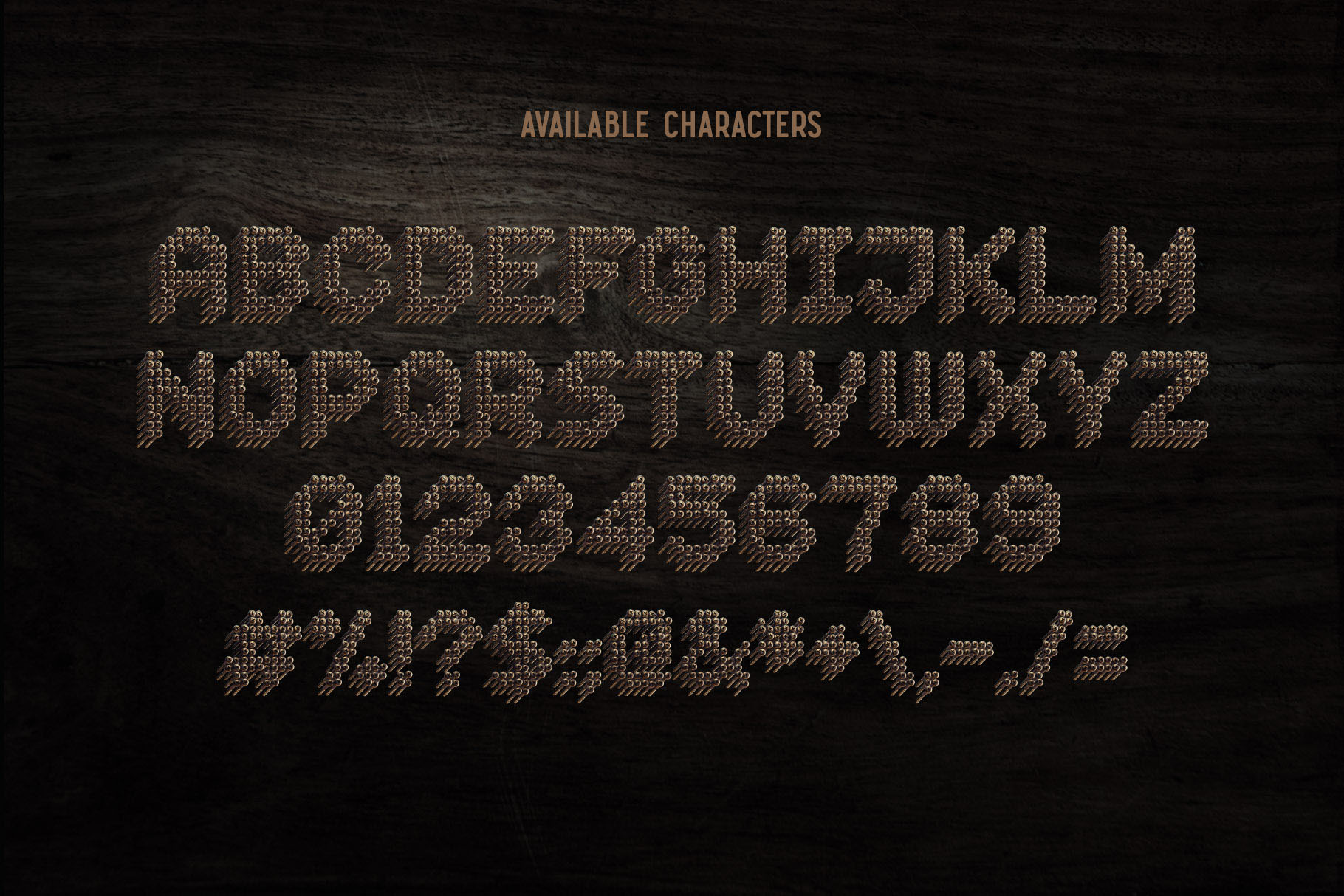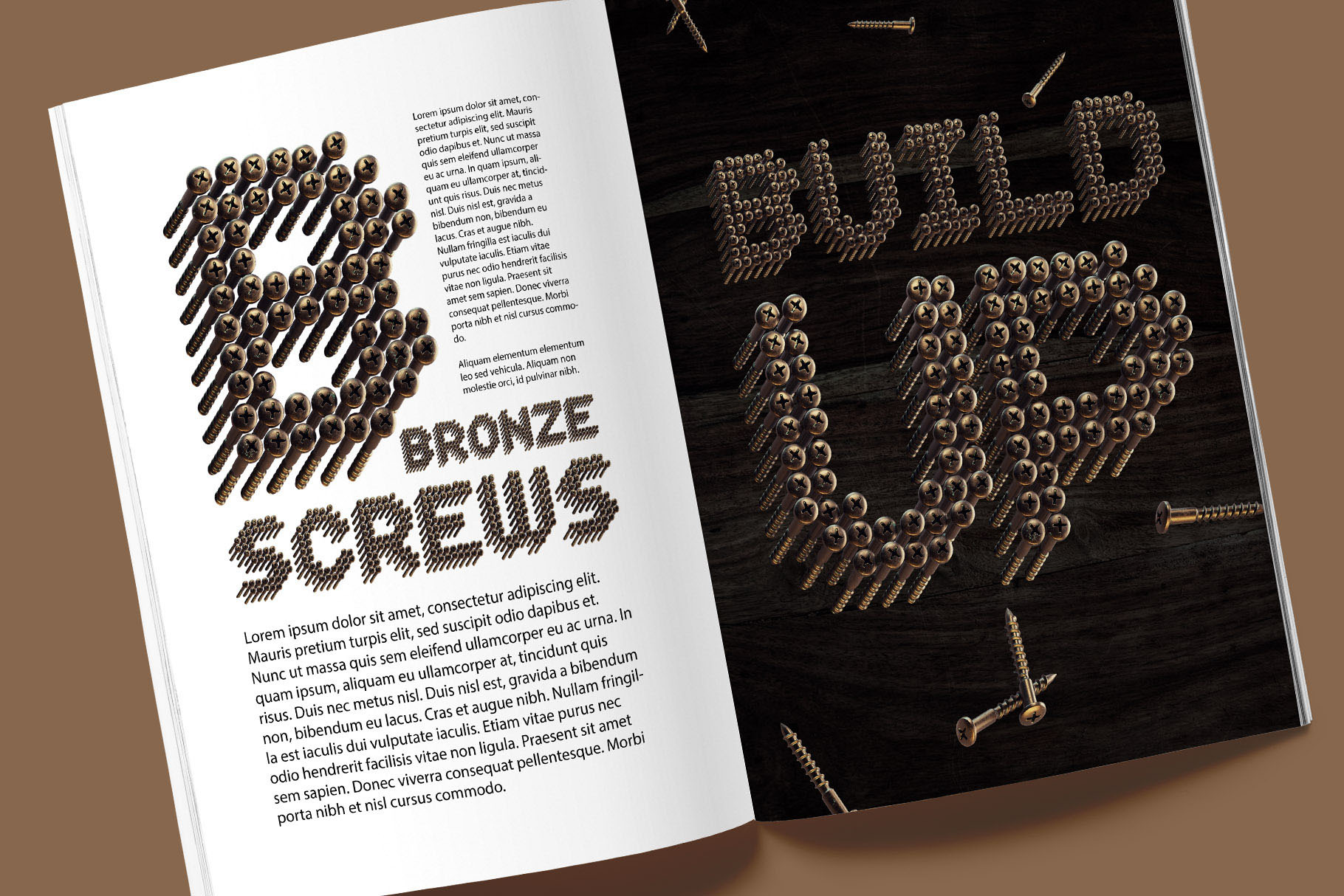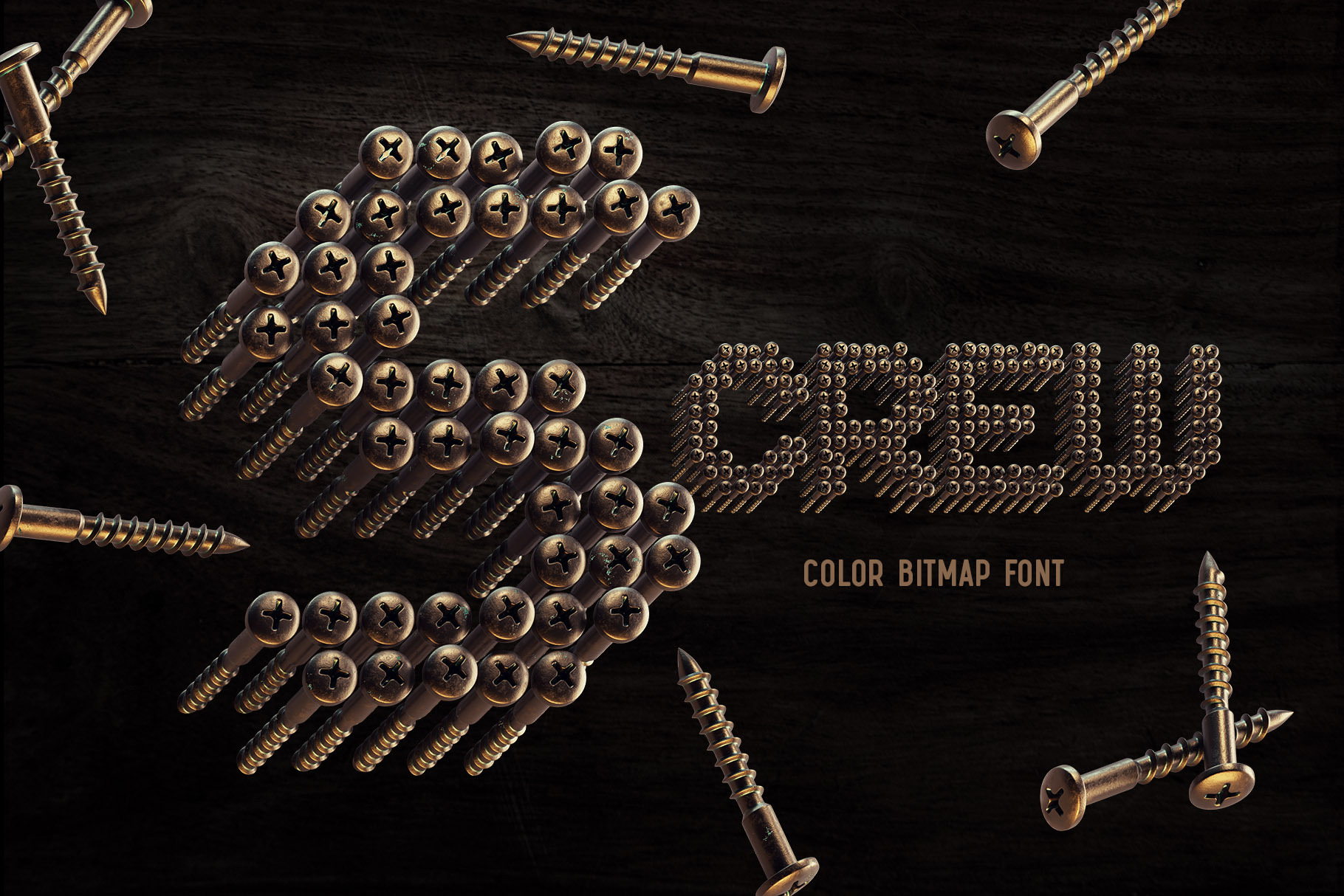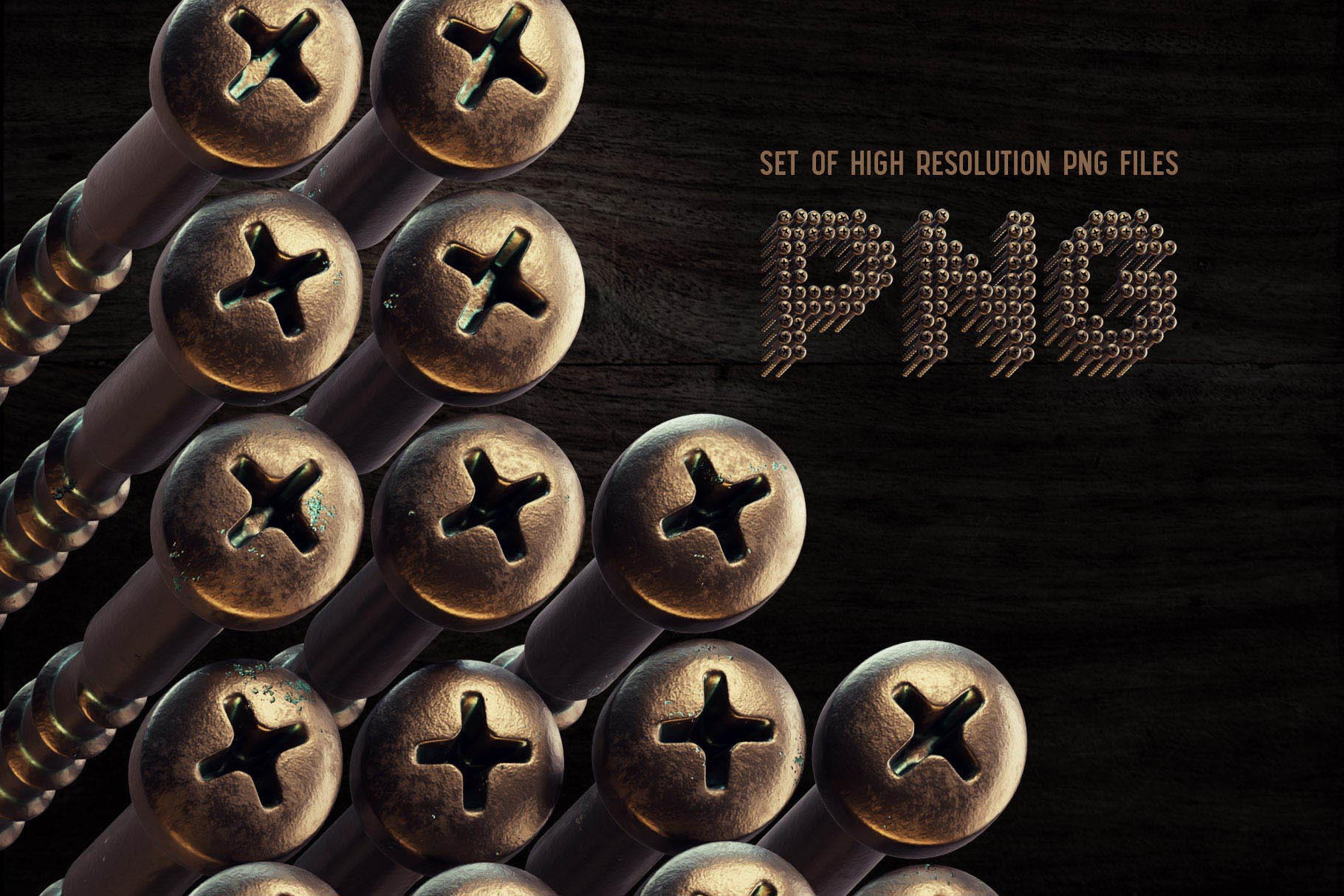
Hello! Presenting a vintage looking font set – S-CREW. It's a 3d rendered typeface made of bronze screws. First of all it's a color bitmap OpenType-SVG font that can be used as a usual OTF font. Also a set of full resolution PNG files with transparent background is included. Consider that only English language and basic punctuation is supported, please check out the screenshot with all available characters. Please keep in mind that it's quite a new technology and it has some software limitation. But most of the popular apps, like Adobe Photoshop, Illustrator, InDesign, Procreate does support color fonts. Thank you and wish you a peaceful sky! | S-CREW - Bitmap Color Font | Gleb Guralnyk